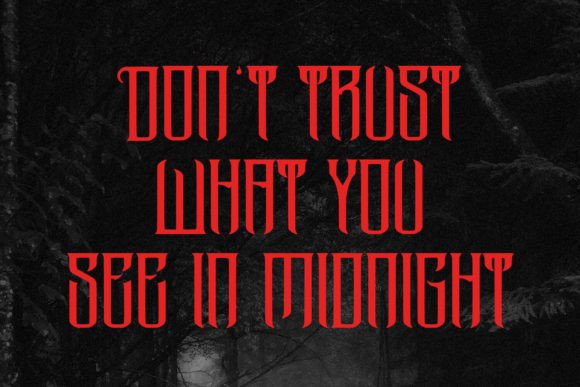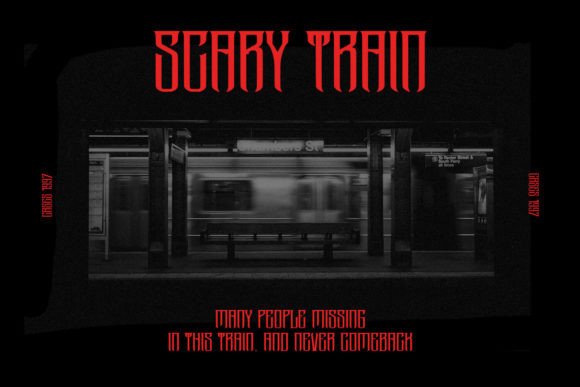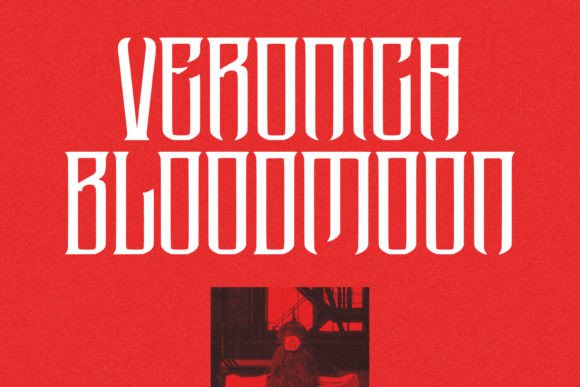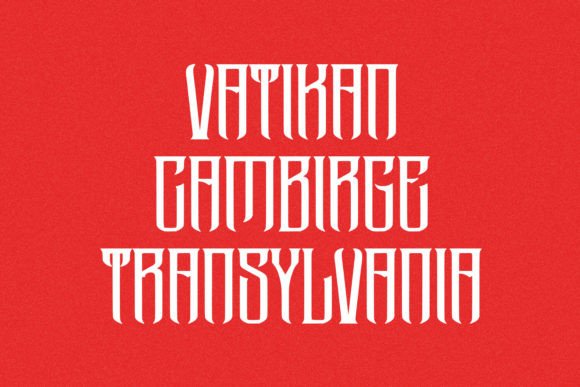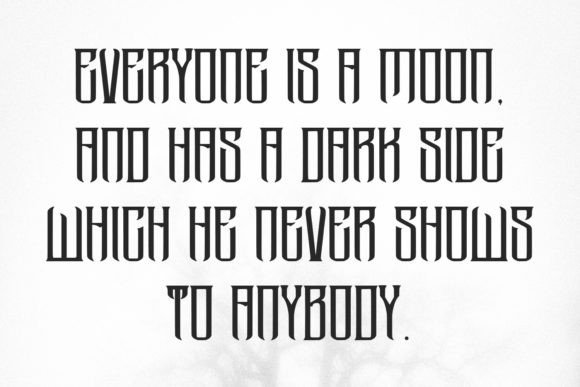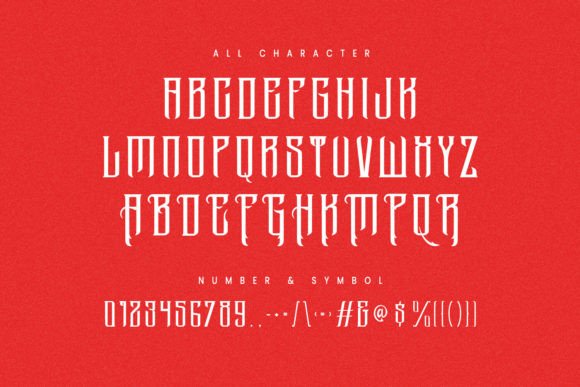
Introduction to Mokhrom Font
As a designer, there’s nothing quite like the thrill of bringing a creative project to life. It’s that moment when all the pieces fall into place, and your vision starts to take shape. For many of us, it’s the perfect spark that ignites a new idea or inspires us to try something new. And that’s exactly what happened when I stumbled upon the Mokhrom Font – a spooky, bold font that looks like old Gothic writing.
Its sharp edges and dark lines give a creepy feeling, perfect for Halloween or scary stories. But what makes the Mokhrom Font truly valuable is its versatility – whether you’re working on a high-quality design project or just need a design resource to add a chilling touch to your words, this font is sure to deliver.
Key Features of Mokhrom Font
- Unique Design Style: The Mokhrom Font offers a distinctive and creative design style, perfect for adding a touch of elegance to your high-quality projects.
- Perfect for Creative Projects: The Mokhrom Font is ideal for use in creative projects, such as graphic design, digital art, and typography-based art.
- Design Resource: This font serves as a valuable design resource, offering a unique and versatile font style that can be used in a variety of design contexts.
Honest Review: Mokhrom Font
I recently came across the Mokhrom Font while searching for a unique design resource to enhance my creative project. I was excited to give it a try and share my honest thoughts with you.
- The Mokhrom Font offers a high-quality, professional look that’s perfect for a variety of creative projects.
- The Mokhrom Font may not be suitable for projects that require a wide range of font styles or variations.
Overall, I’m impressed with the Mokhrom Font and would highly recommend it to designers looking for a high-quality, free design resource. While it may have some limitations, the benefits far outweigh the drawbacks.
Tips for Getting the Most Out of Mokhrom Font
To get the most out of Mokhrom Font, use it in combination with other high-quality design resources. Experiment with different font sizes, styles, and colors to create a unique and eye-catching design. Additionally, use the font’s transparent background to create a sense of depth and dimension in your design.
Mokhrom Font is commonly used in creative projects such as logos, brochures, and business cards. Its high quality and transparent background make it a great design resource for designers looking to create a unique and professional look.